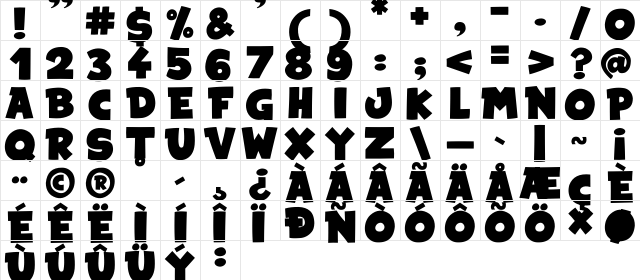
Space Comics Regular
Design Context for Space Comics Typeface
Space Comics has an approachable, lighthearted character — its loose, expressive forms are well-suited to children's content, casual branding, and fun-first design.
Great for children's books, toy packaging, family event branding, and casual consumer-facing design.
Font Pairing: Pairs well with a rounded or humanist sans for body copy, maintaining the friendly tone without relying on Space Comics to carry extended reading.
Pro Tip: Avoid using Space Comics for long passages of text — it works best for headlines, labels, and short calls to action.